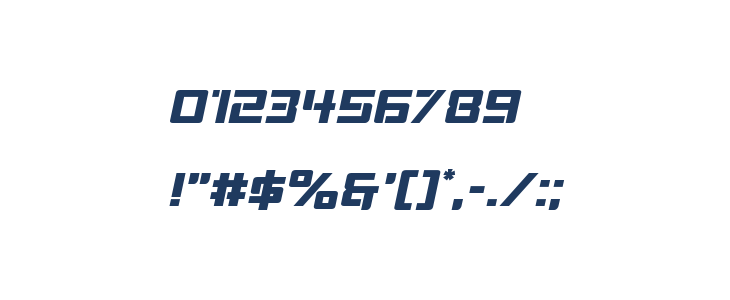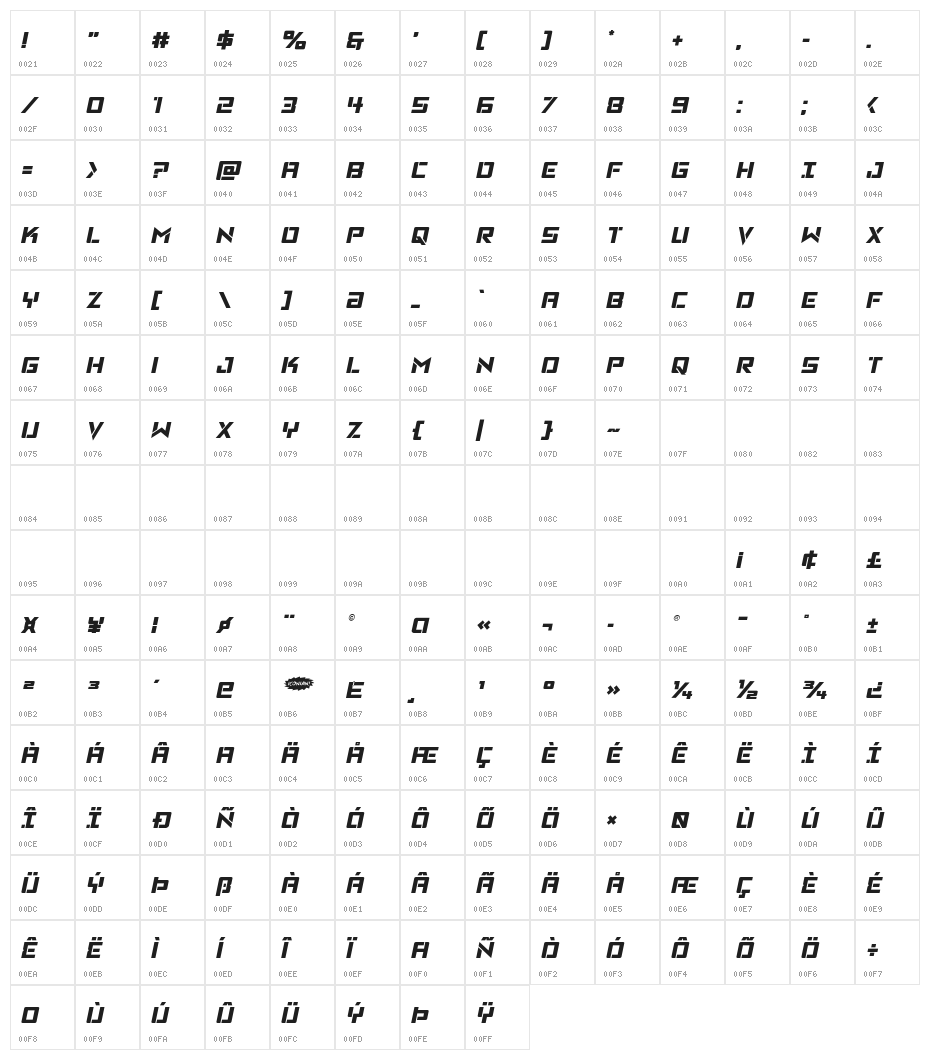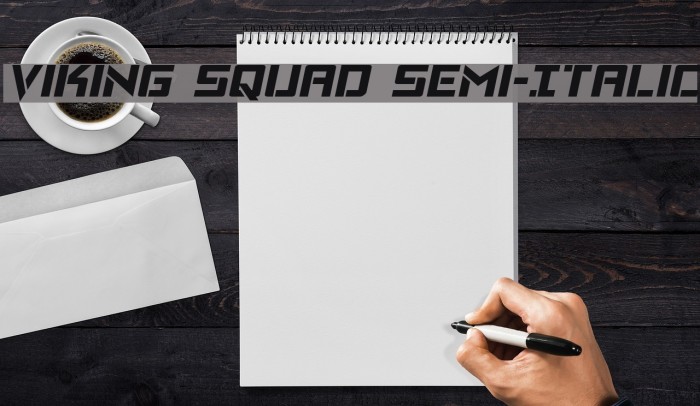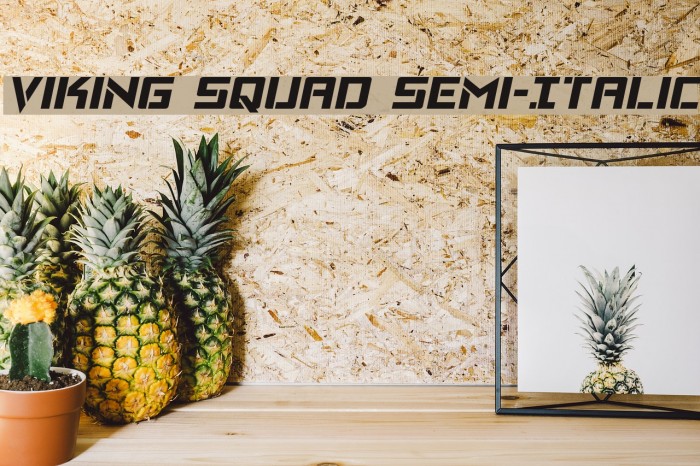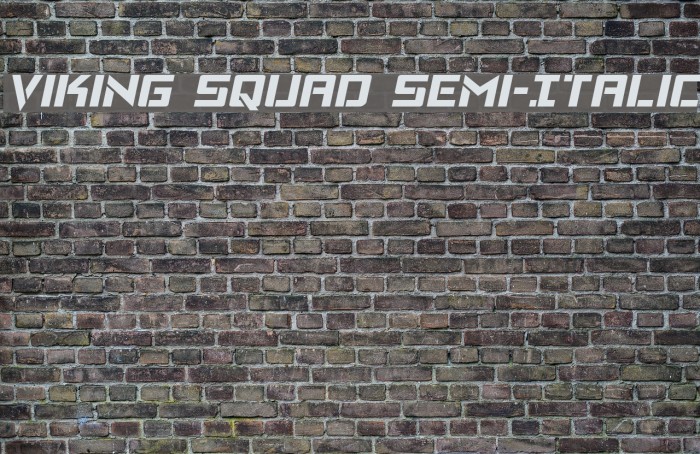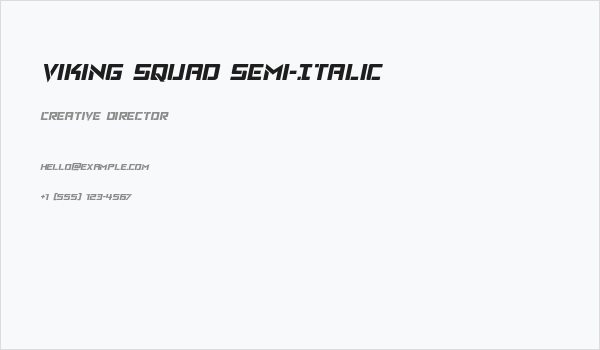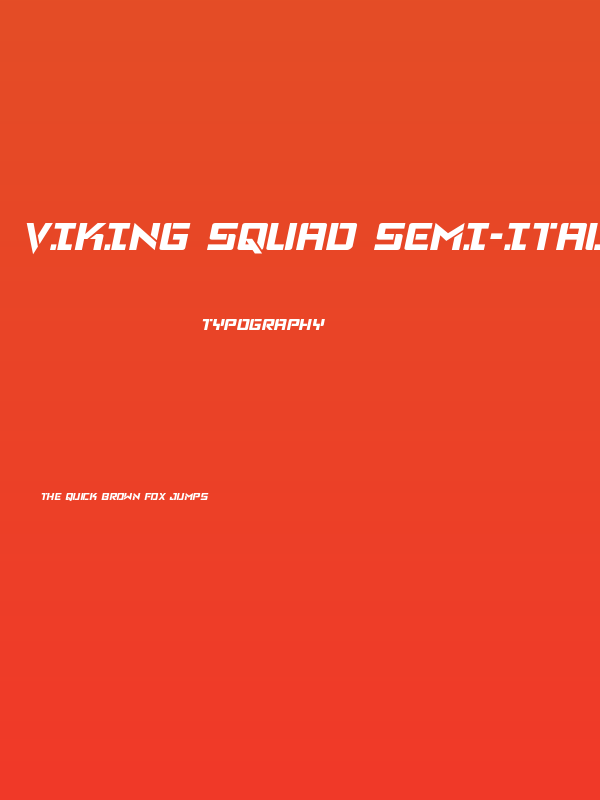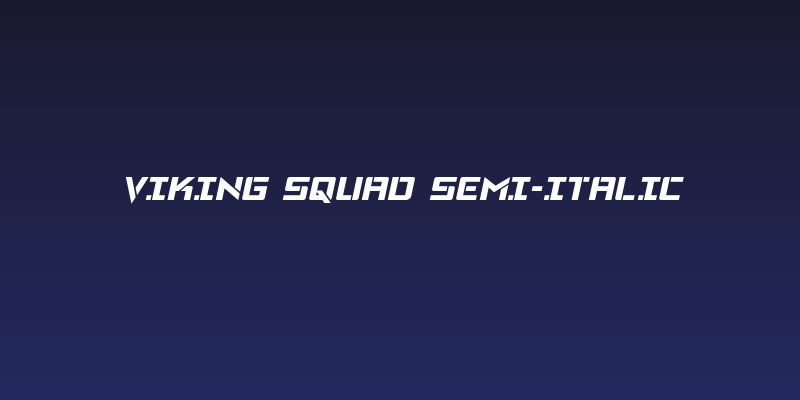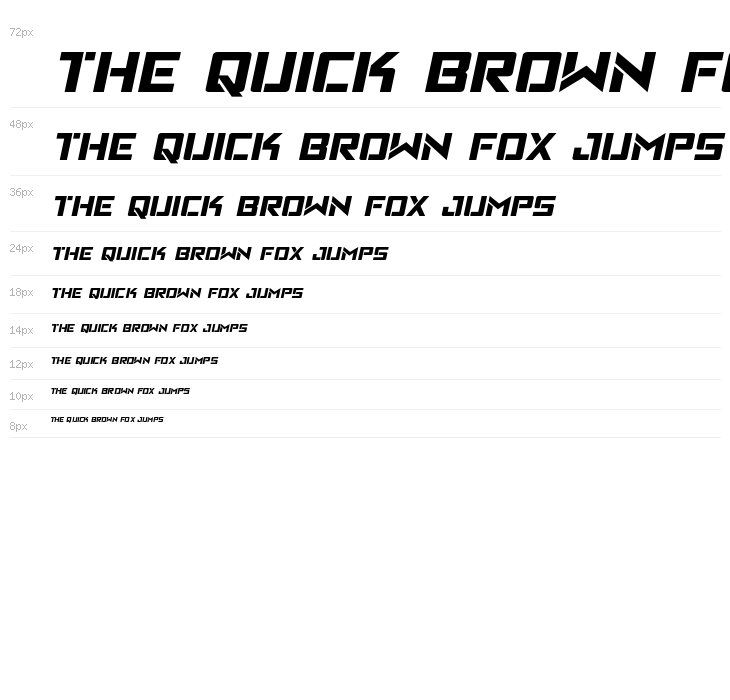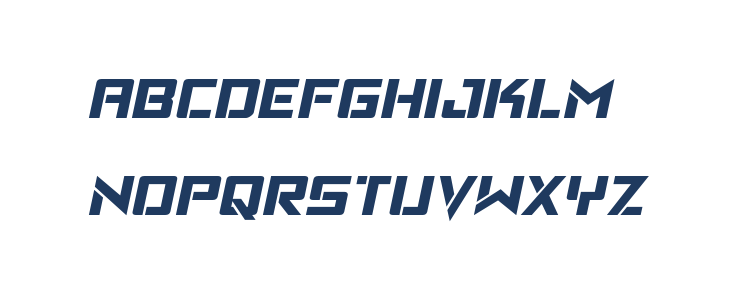
Viking Squad Semi-Italic Font
Viking Squad Semi-Italic Description
This font features a bold, angular design with a semi-italic slant, giving it a dynamic and energetic appearance. The characters are sharply defined, with a futuristic and slightly aggressive style. The uppercase and lowercase letters maintain a consistent geometric structure, while the numbers and special characters complement the overall aesthetic. The font's unique angles and slant make it stand out, ideal for projects that require a modern and edgy look.
| Proposed Projects | Ideal for video game titles, sports branding, tech-related logos, and dynamic posters. |